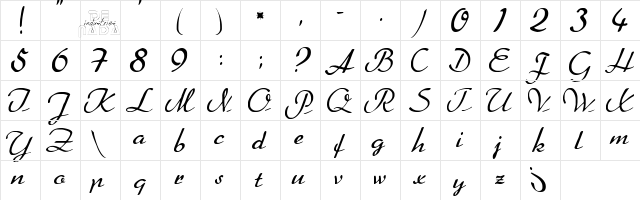
Heather Regular
Design Context for Heather Typeface
Heather takes a measured approach to typography — its balanced proportions and neutral character make it a reliable workhorse for both digital and print work.